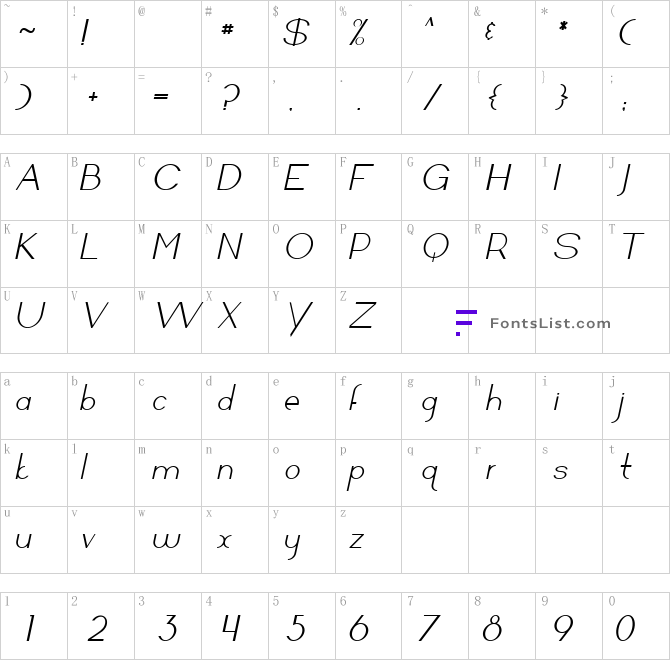
- Font Name:Arrivals and Departures
- Full Name:Arrivals and Departures Italic
Arrivals-and-Departures-Italic.ttf is a very beautiful artistic font, Arrivals-and-Departures-Italic.ttf is widely used in the design and printing of various books and pictures,Arrivals-and-Departures-Italic.ttf has a strong visual impact,Arrivals-and-Departures-Italic.ttf is a commonly used font in newspapers, magazines and books, and is used in posters, e-commerce Poster design, store design, logo design, font design and other fields.Arrivals-and-Departures-Italic.